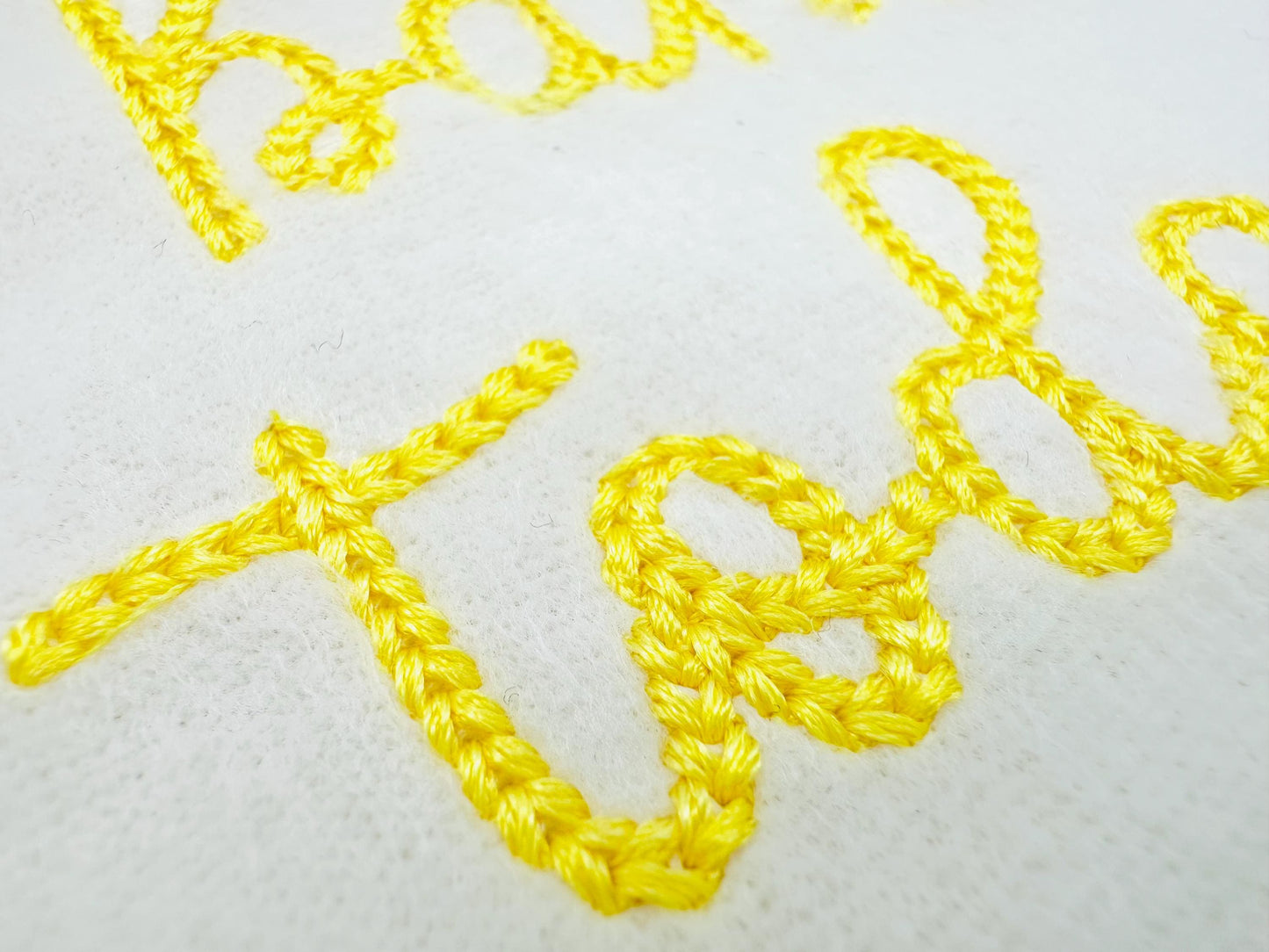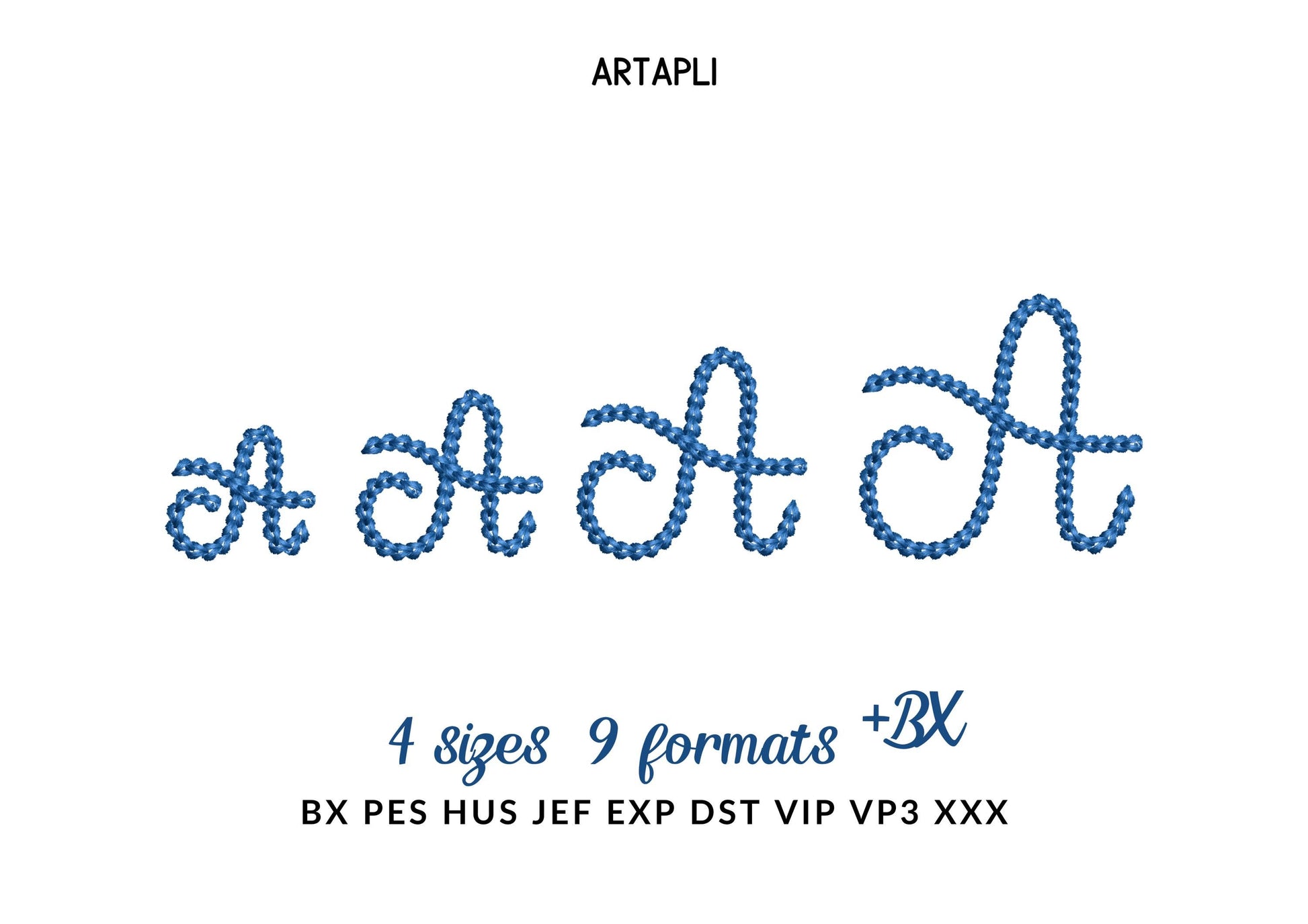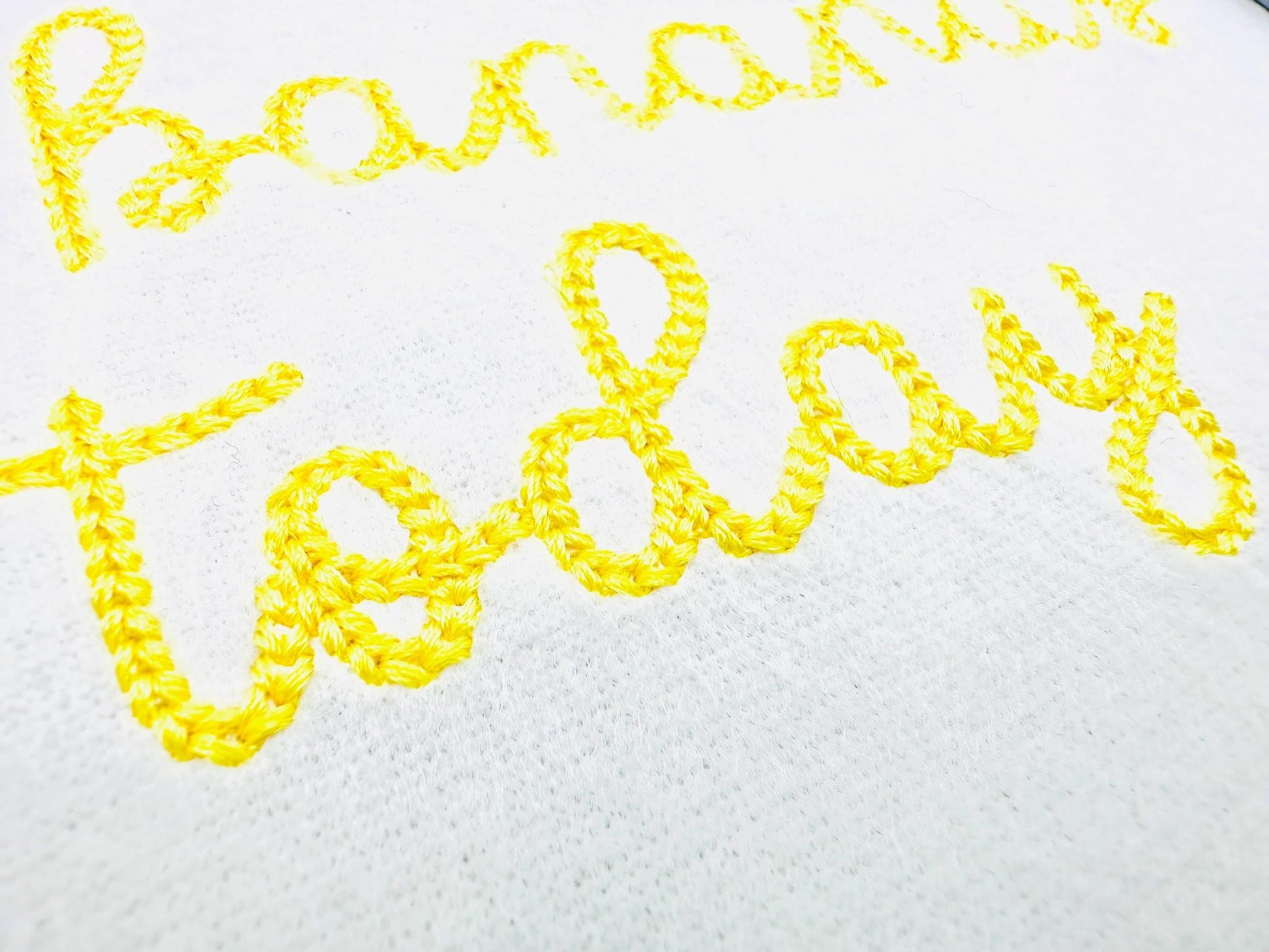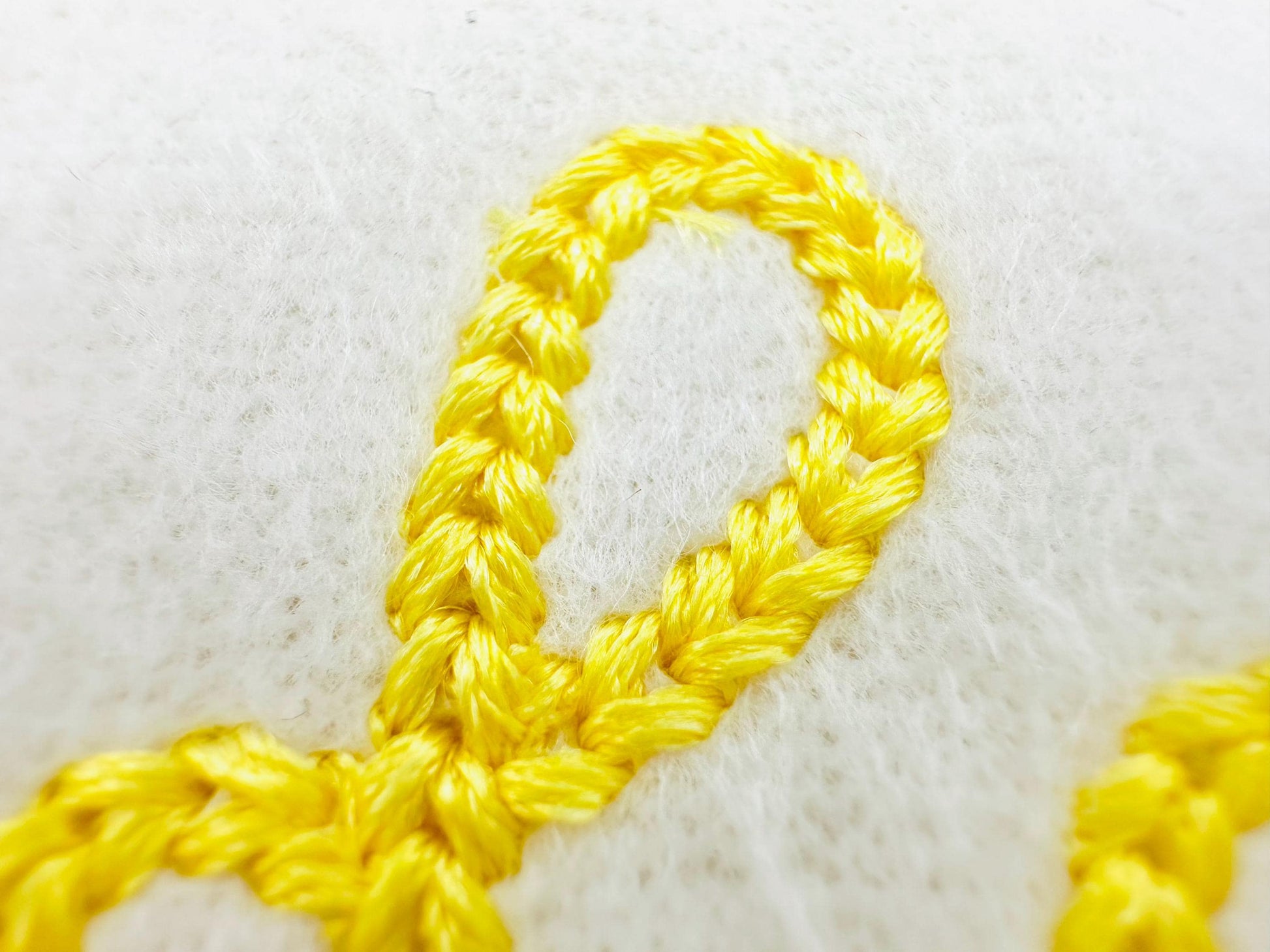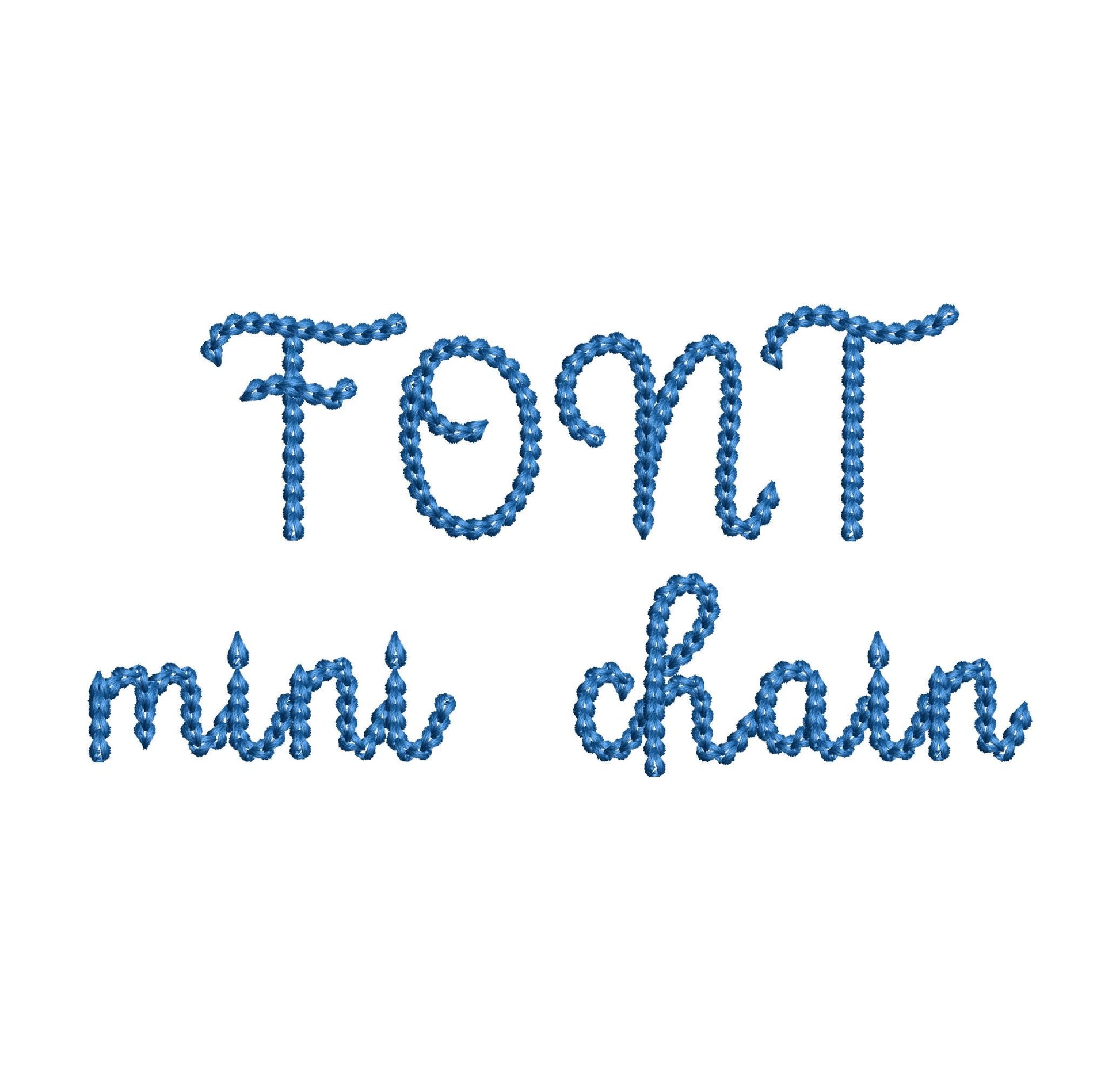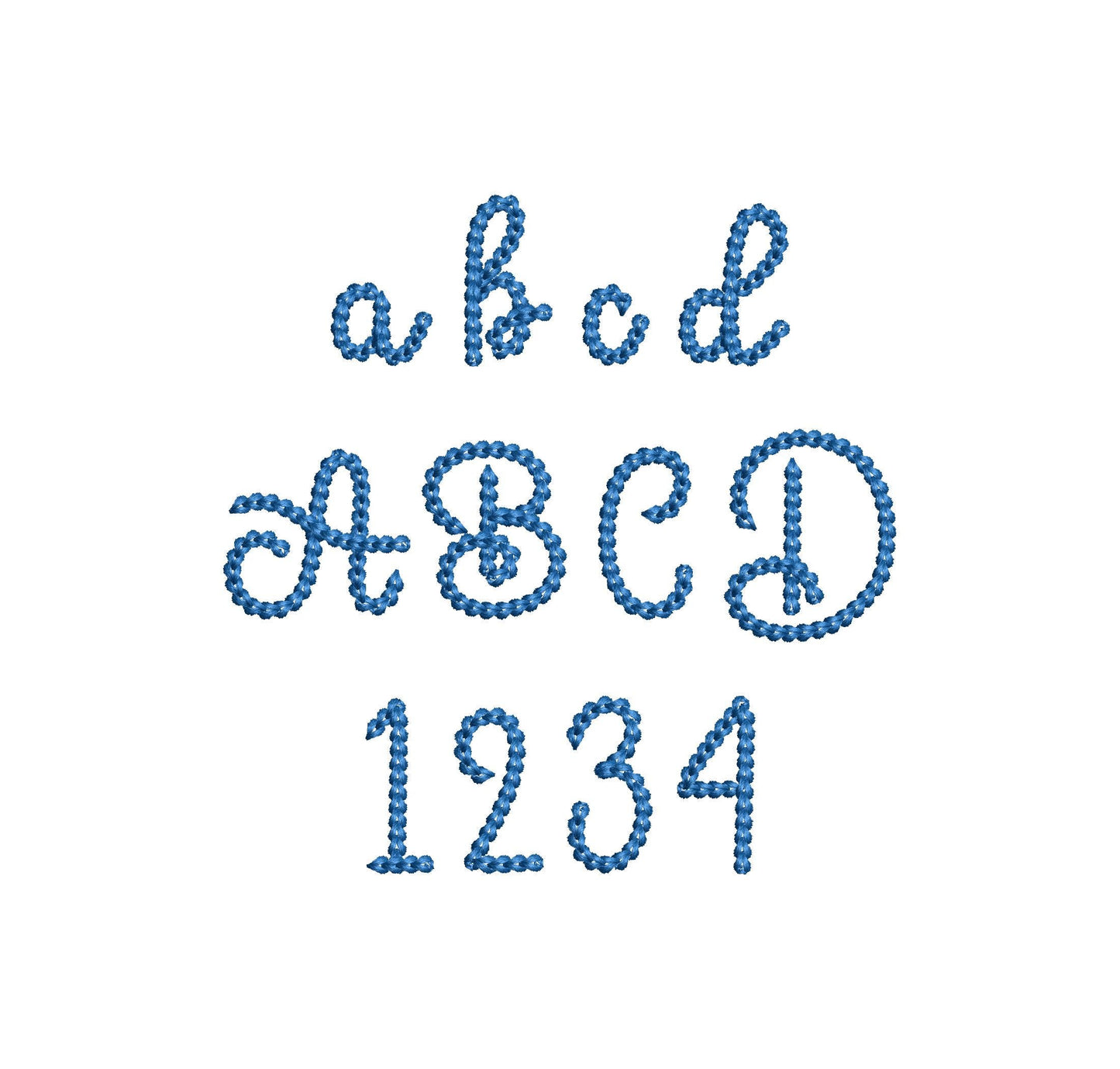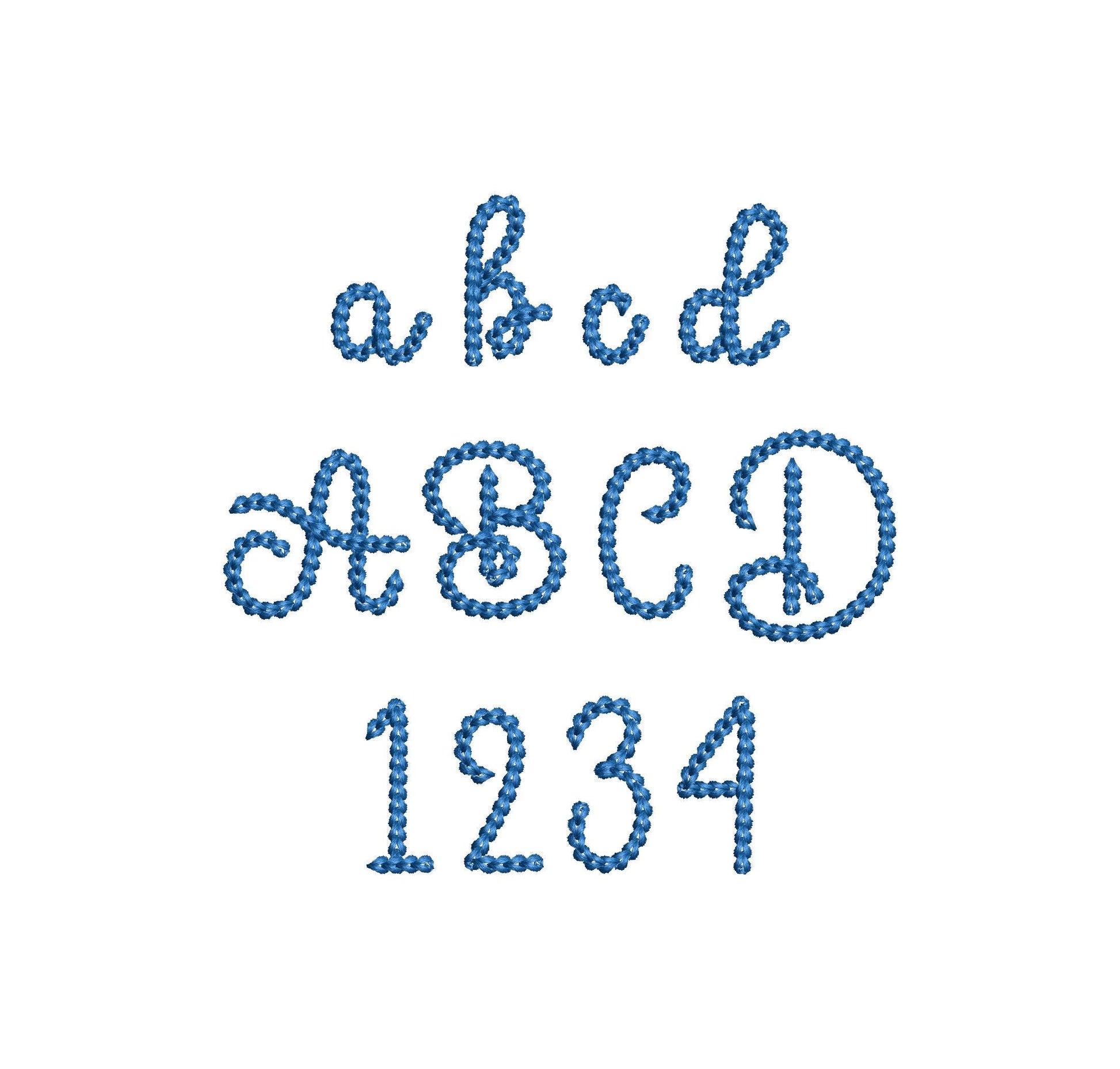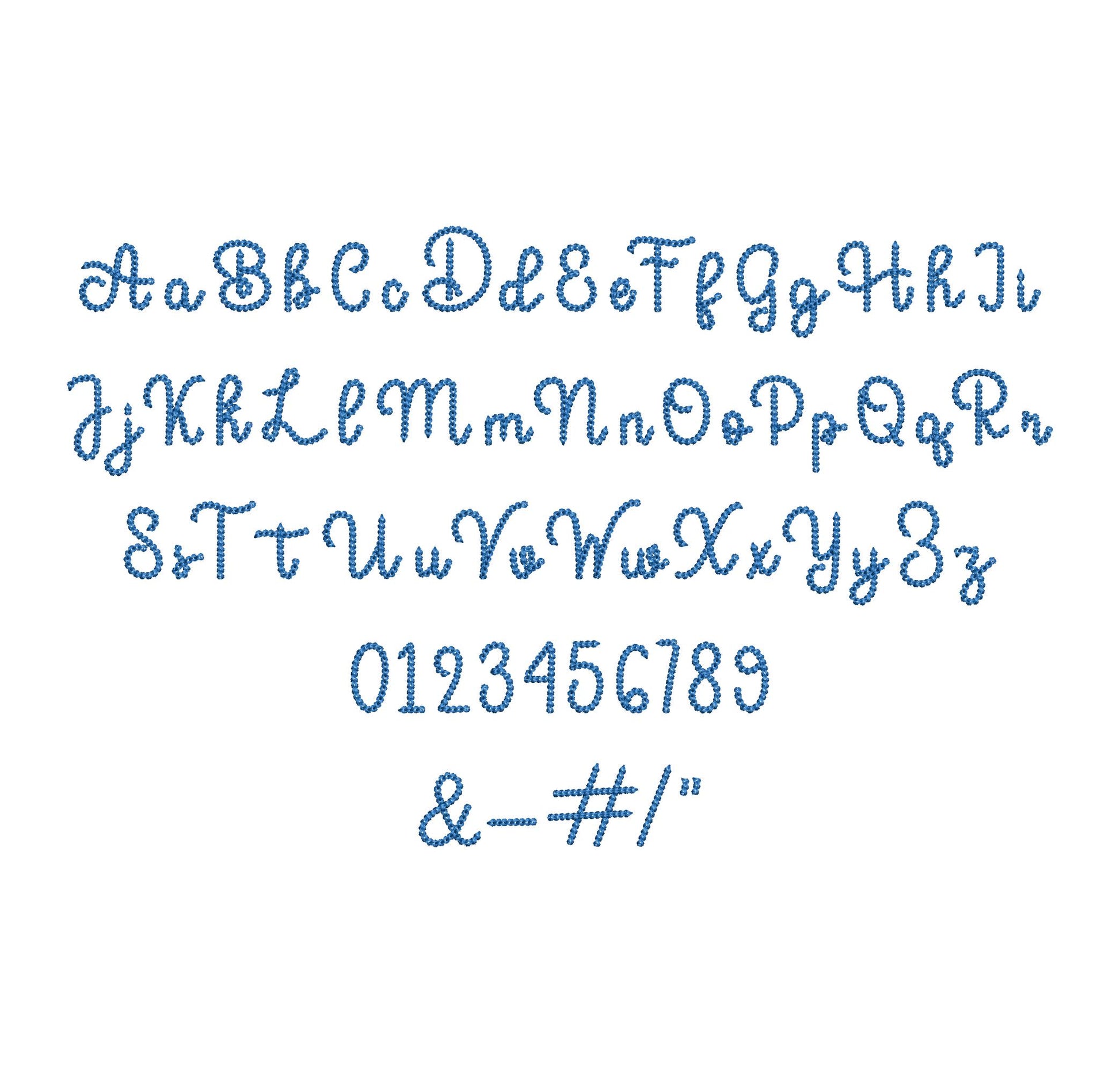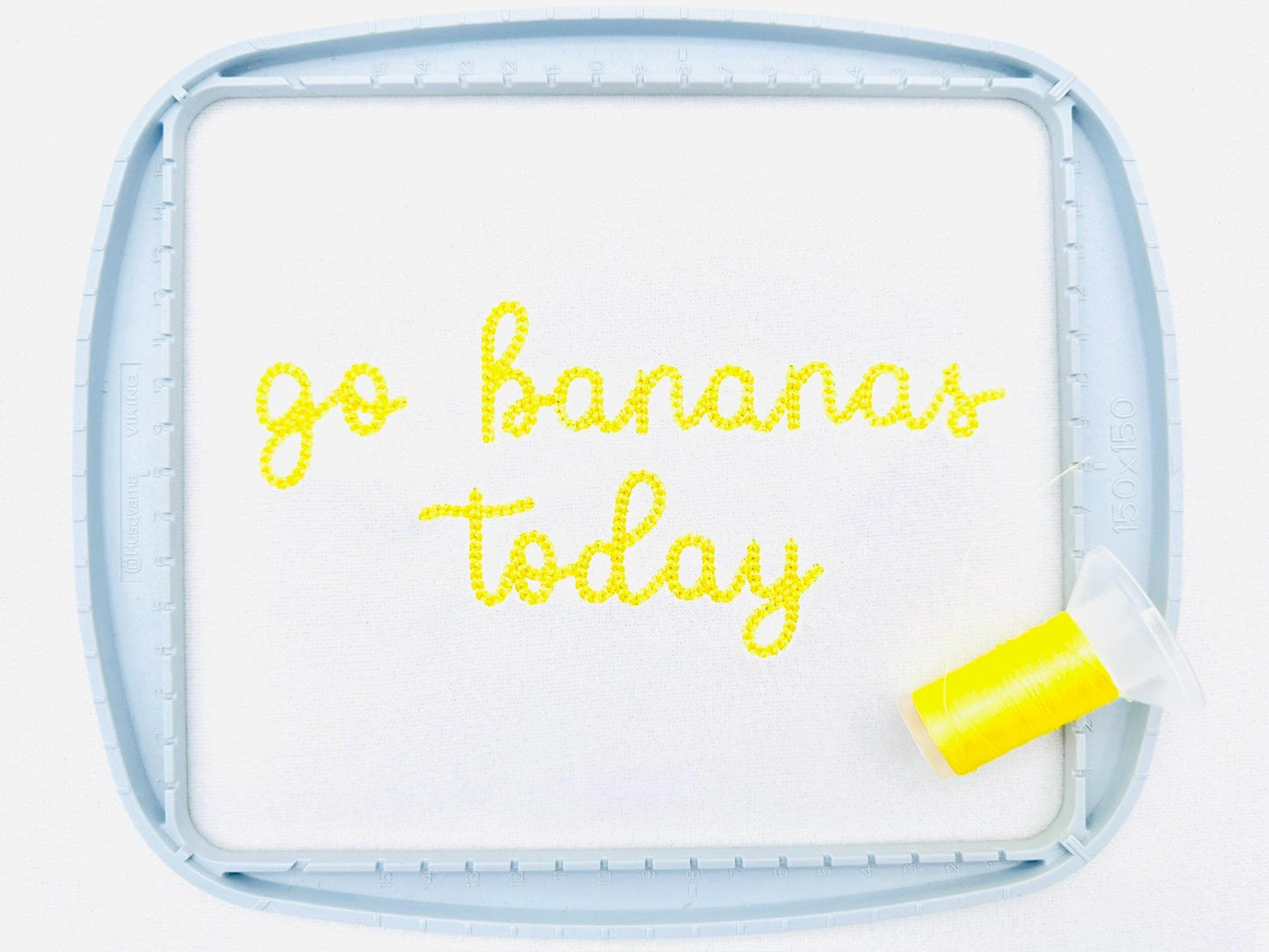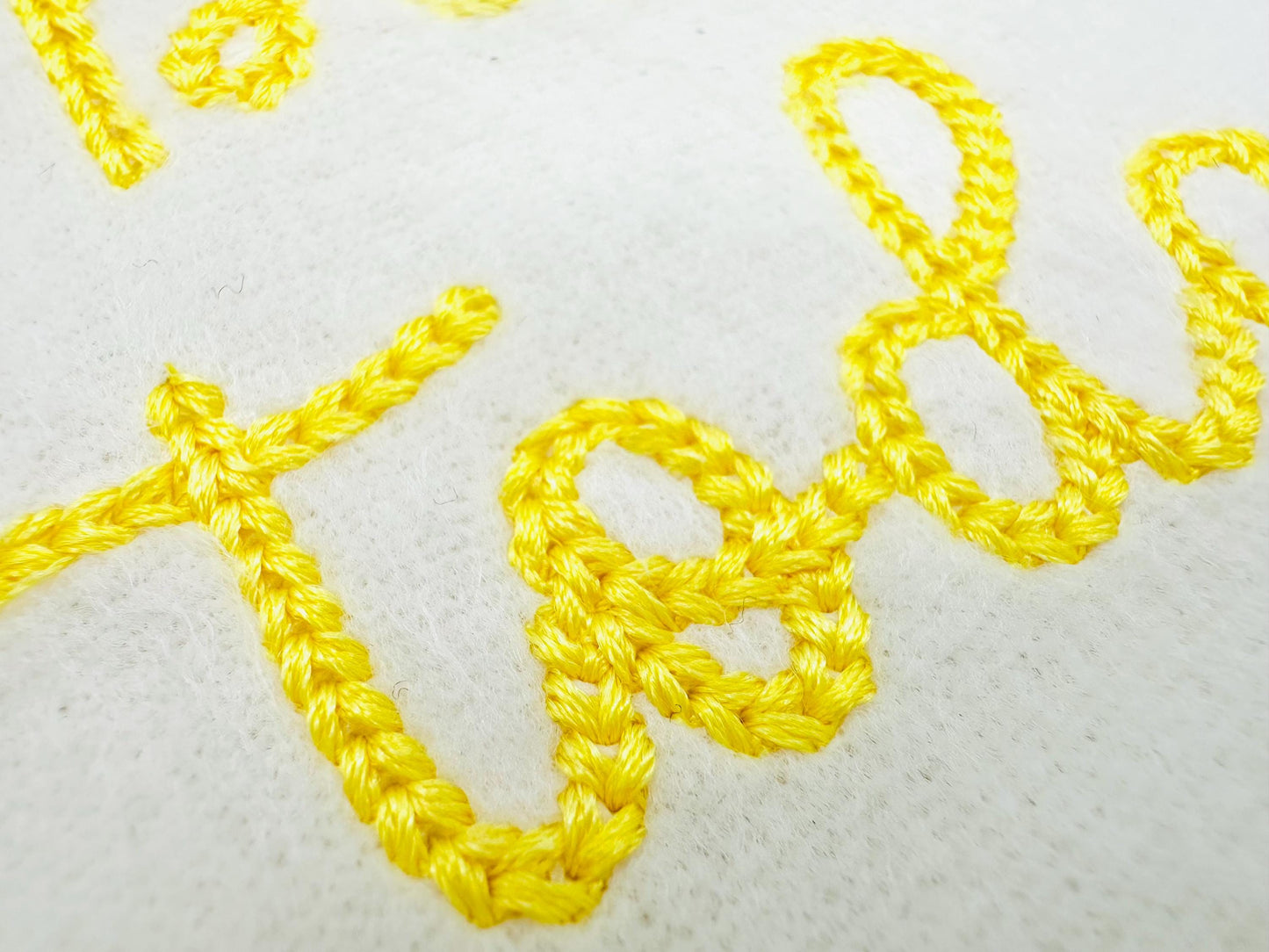
Or click to open the linkA tiny chain stitch script font for kids' and baby names. Sweet on collars, cuffs, pockets and small gifts.
The letters come in four mini sizes: 0.9, 1.1, 1.4 and 1.7 inches. A neat chain stitch forms each handwritten letter. Includes uppercase and lowercase letters A to Z, numbers 0 to 9 and punctuation.
- Mini chain stitch script font
- 4 sizes: 0.9, 1.1, 1.4 and 1.7 in